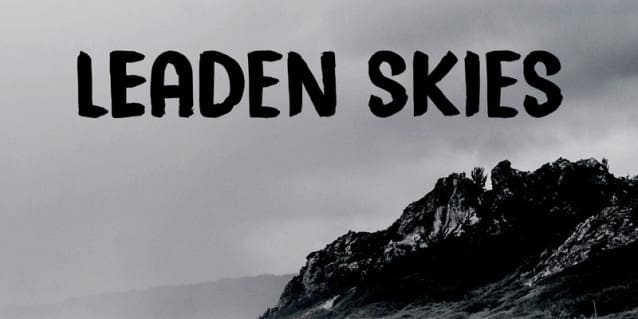
Leaden Skies Font
Leaden Skies Font is a handmade, all caps display font. I made it with a brush and Chinese ink. It comes with extensive language support and a set of alternates for the lower case glyphs.